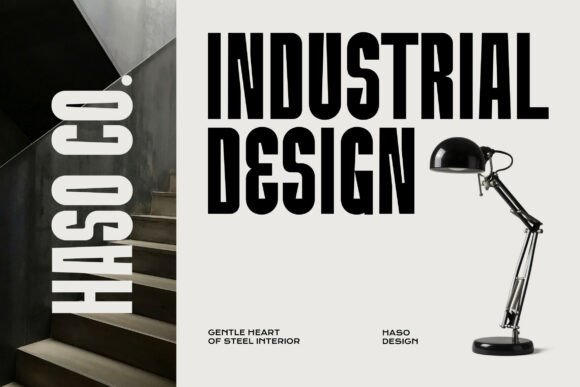
Dormanc Northy Font: A Bold and Modern Sans Serif for Impactful Designs
In the world of typography, fonts play a crucial role in conveying messages, evoking emotions, and creating visual identities. Among the numerous fonts available, Dormanc Northy stands out as a bold and condensed sans serif font that has been gaining attention for its modern, impactful, and strong appearance. In this article, we’ll delve into the characteristics, uses, and benefits of Dormanc Northy Font, exploring why it’s an excellent choice for designers seeking to create striking visuals.
Characteristics of Dormanc Northy Font
Dormanc Northy is a bold condensed sans serif font, characterized by its blocky letters that exude a sense of modernity and strength. The font’s design is minimalistic, yet it boasts a strong typographic presence that captures attention quickly. The condensed nature of the font makes it ideal for display purposes, particularly for headlines or titles, where a bold and impactful statement is required.
Design and Aesthetic
The design of Dormanc Northy Font is centered around its blocky, sans serif letters, which provide a clean and modern look. The font’s boldness and condensed style make it perfect for creating visually striking headlines, titles, and slogans. The overall aesthetic is minimalistic, with a focus on strong typographic presence, making it suitable for design-focused, high-impact visuals.
Uses of Dormanc Northy Font
Dormanc Northy Font is particularly well-suited for various design applications where attention-grabbing, modern typography is essential. Some of the ideal uses of this font include:
- Display purposes: headlines, titles, and slogans
- Sports-related designs: fast car racing sports titles, running matches, cycling, and jersey designs
- Automotive designs: game logos, monograms, and branding
- Industrial and minimalist designs: posters, branding, and visual identities
Benefits of Using Dormanc Northy Font
The benefits of using Dormanc Northy Font are numerous. Some of the key advantages include:
- Attention-grabbing: The font’s bold and condensed style ensures that your message gets noticed quickly.
- Modern and impactful: The font’s modern design and strong typographic presence make it perfect for creating visually striking designs.
- Versatile: Dormanc Northy Font can be used for various design applications, from sports and automotive to industrial and minimalist designs.
- Easy to read: Despite its bold and condensed style, the font remains easy to read, making it suitable for use in a variety of contexts.
Tips for Using Dormanc Northy Font Effectively
To get the most out of Dormanc Northy Font, here are some tips for using it effectively:
- Use it sparingly: Due to its bold and condensed style, it’s best to use Dormanc Northy Font sparingly, reserving it for headlines, titles, and slogans.
- Pair it with complementary fonts: Pairing Dormanc Northy Font with complementary fonts can create a visually striking contrast and add depth to your design.
- Experiment with colors and textures: Don’t be afraid to experiment with different colors and textures to add an extra layer of visual interest to your design.
Dormanc Northy Font is a bold and modern sans serif font that is perfect for designers seeking to create impactful and attention-grabbing visuals. Its blocky letters, condensed style, and strong typographic presence make it ideal for display purposes, sports-related designs, automotive designs, and industrial and minimalist designs. By understanding the characteristics, uses, and benefits of Dormanc Northy Font, designers can harness its power to create striking visuals that capture attention and leave a lasting impression.
- What is Dormanc Northy Font? Dormanc Northy Font is a bold and condensed sans serif font designed for display purposes, sports-related designs, automotive designs, and industrial and minimalist designs.
- What are the key characteristics of Dormanc Northy Font? The font is characterized by its blocky letters, condensed style, and strong typographic presence.
- What are some ideal uses of Dormanc Northy Font? The font is ideal for headlines, titles, slogans, sports-related designs, automotive designs, and industrial and minimalist designs.